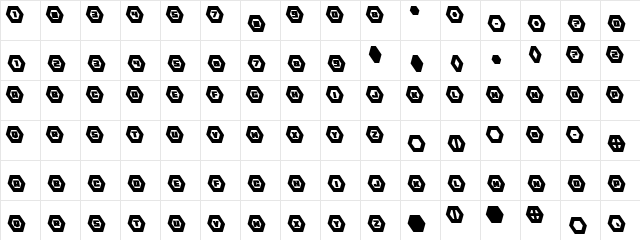
HeXkEy Leftalic Regular
Design Context for HeXkEy Leftalic Typeface
HeXkEy Leftalic is a composed and adaptable typeface that performs quietly and consistently across a wide range of design contexts. The dynamic lean of this cut emphasises speed and emphasis in any layout.
Pro Tip: Try HeXkEy Leftalic for annotation and caption copy alongside an upright companion — the contrast in angle creates a dynamic but ordered typographic system.